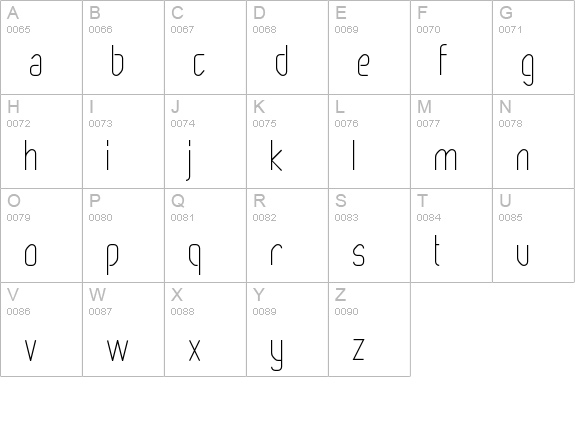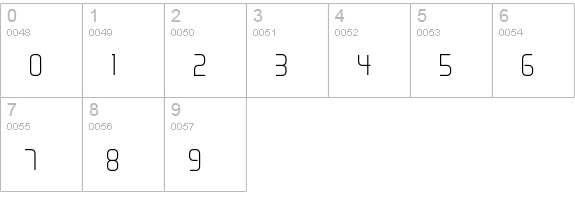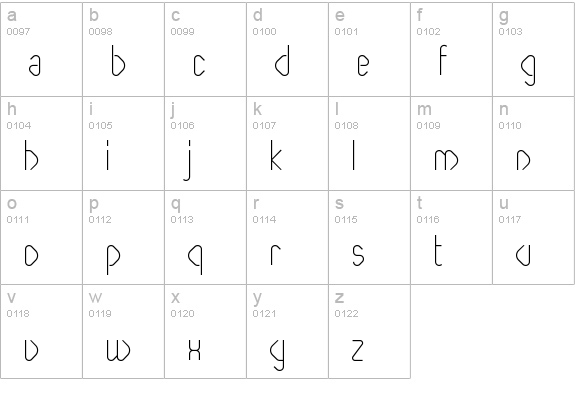
Paperclip Light Font Details
Paperclip Light is a refined, elegant variant in the Paperclip typeface family \xE2\x80\x94 well suited to elegant body text, refined sub-headings, and luxury branding.
Introducing Paperclip Light font, a sleek and modern typeface that exudes elegance and sophistication. This font is perfect for creating stylish and professional designs, whether it's for branding, logos, packaging, or any other creative project. With its clean lines and subtle curves, Paperclip Light font effortlessly captures attention and adds a touch of class to any design. The best part? Paperclip Light font is free to download at FontsMarket.com! That's right, you can elevate your design projects with this stunning font without spending a penny. So why wait? Head over to FontsMarket.com now and grab your free copy of Paperclip Light font to add a touch of elegance to your creations.